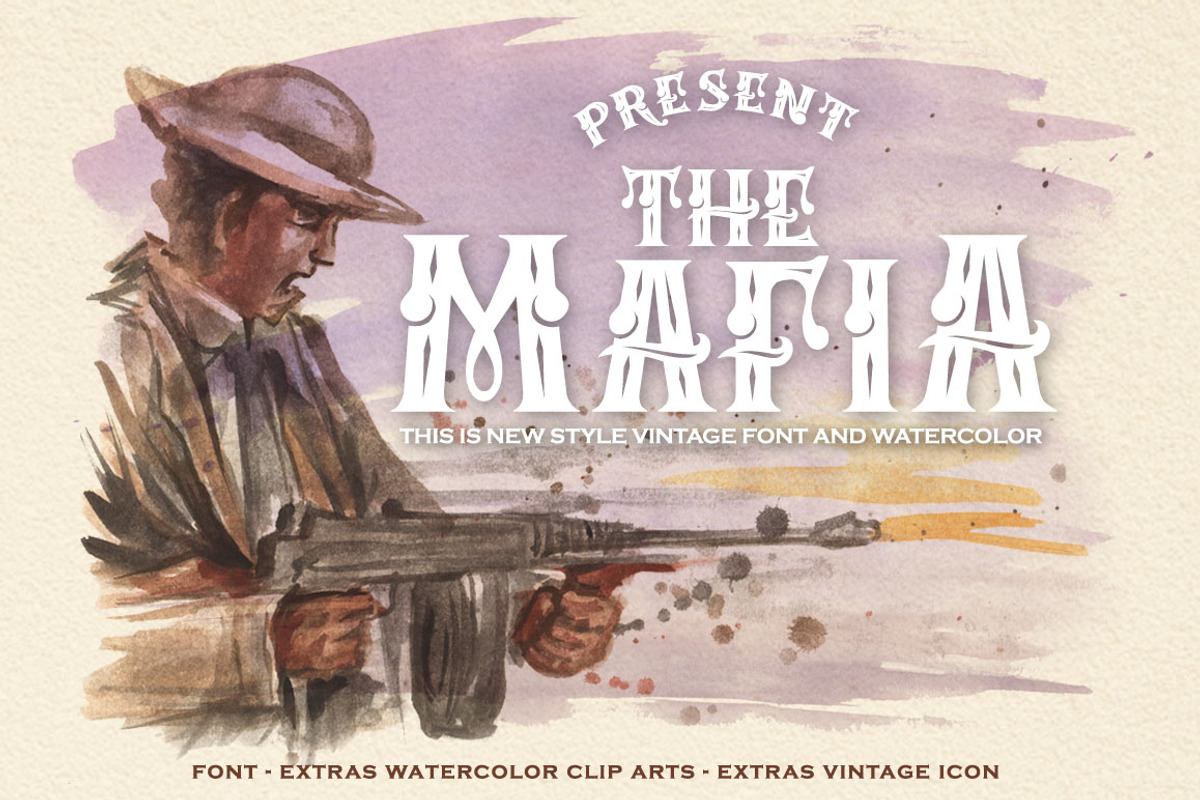
Mafia Font Free Download is a bold, vintage-inspired typeface that captures the gritty elegance and mysterious allure of classic gangster-era aesthetics. With its strong serifs, sharp lines, and noir-style character, this font is perfect for crime-themed posters, retro branding, movie titles, whiskey labels, and editorial designs that demand drama and sophistication.
The font channels the mood of 1920s–1940s mob culture—refined, dangerous, and always in control. It works beautifully in bold headlines, logos, and stylized branding where you want to make a confident and unforgettable impression.
Give your design the bold, cinematic edge of Mafia and make every word an offer they can’t refuse.